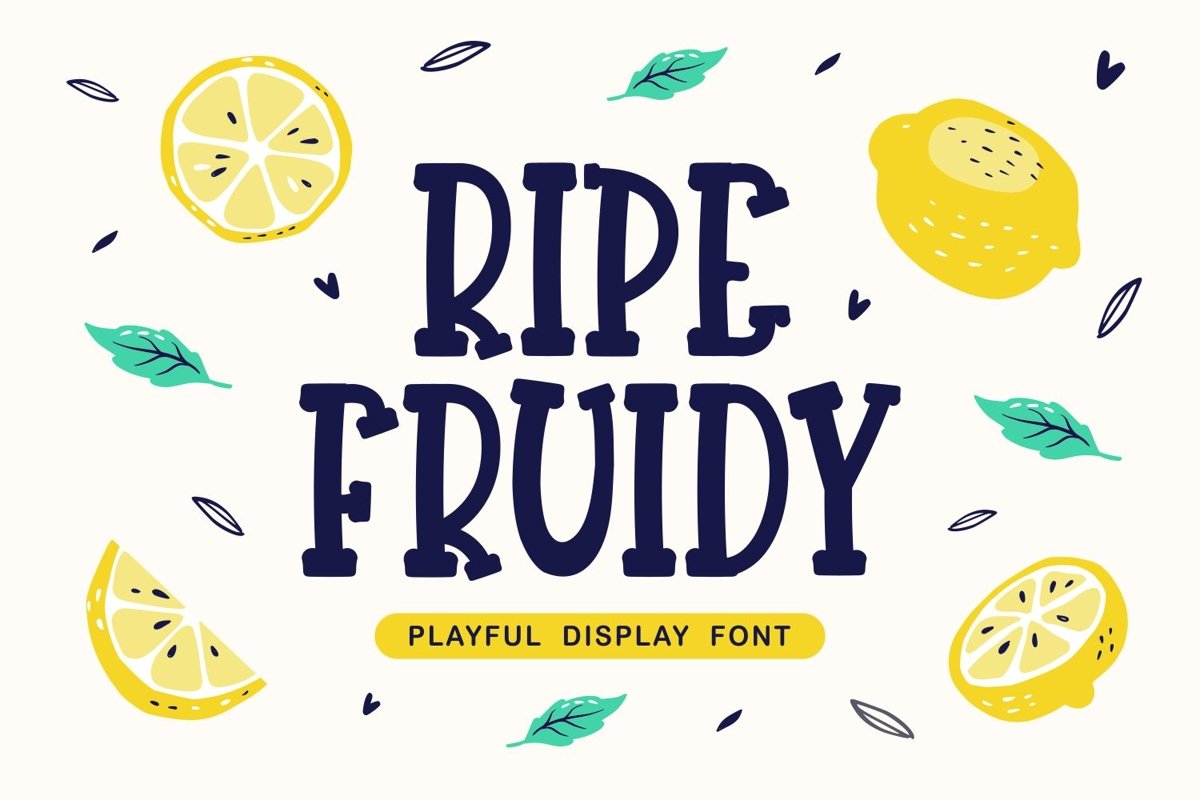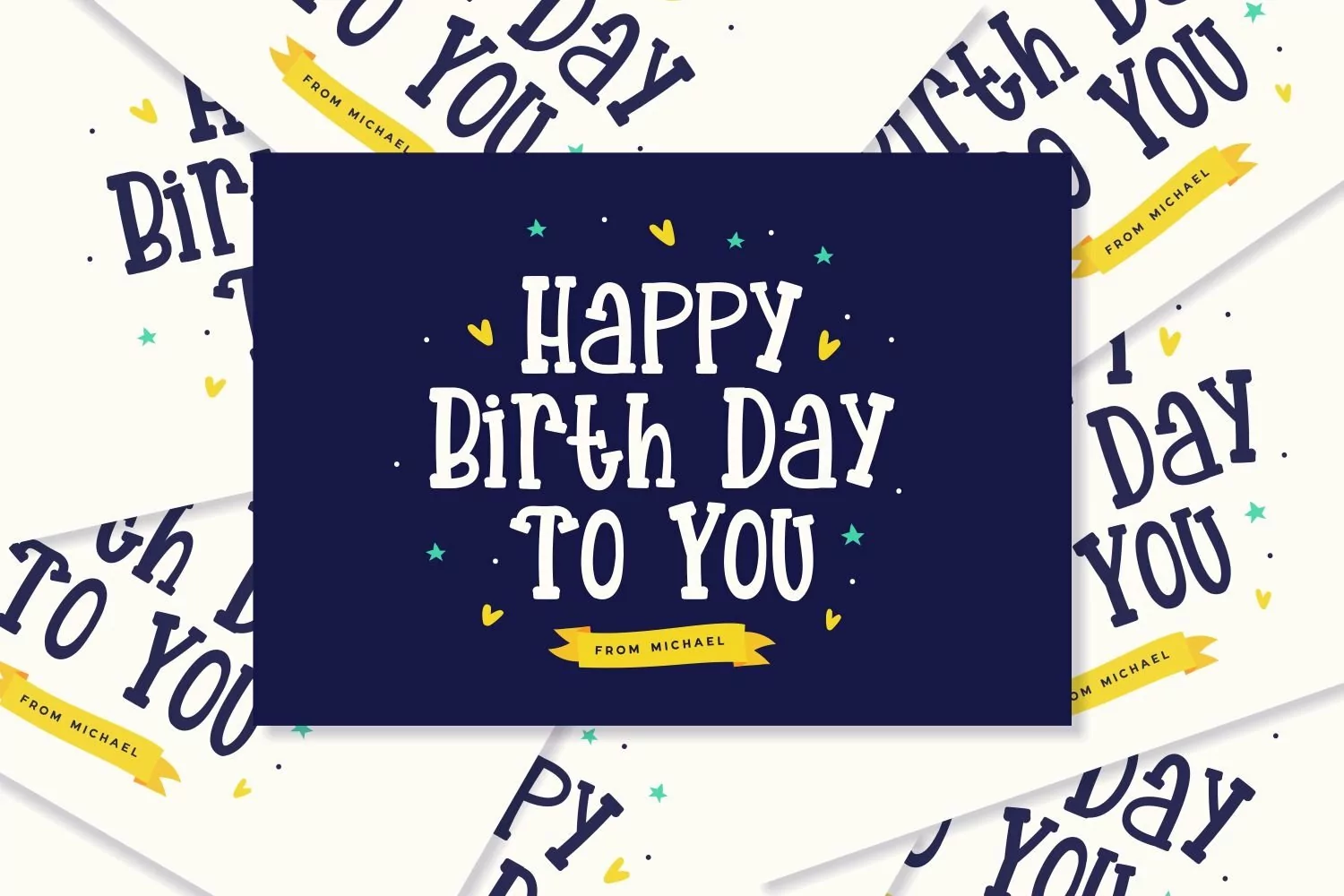
Ripe Fruidy is serif display come with playful themes. We wanted to create the most unique and clean characters. It matches applies in some designs such as the logotype, brand, packaging, quotes, cute poster, kids shirt, cover book, birthday invitation and more custom design. The features uppercase, lowercase, numeral, punctuation & symbol, multilingual support, PUA encoded (fully accessible without additional design software).